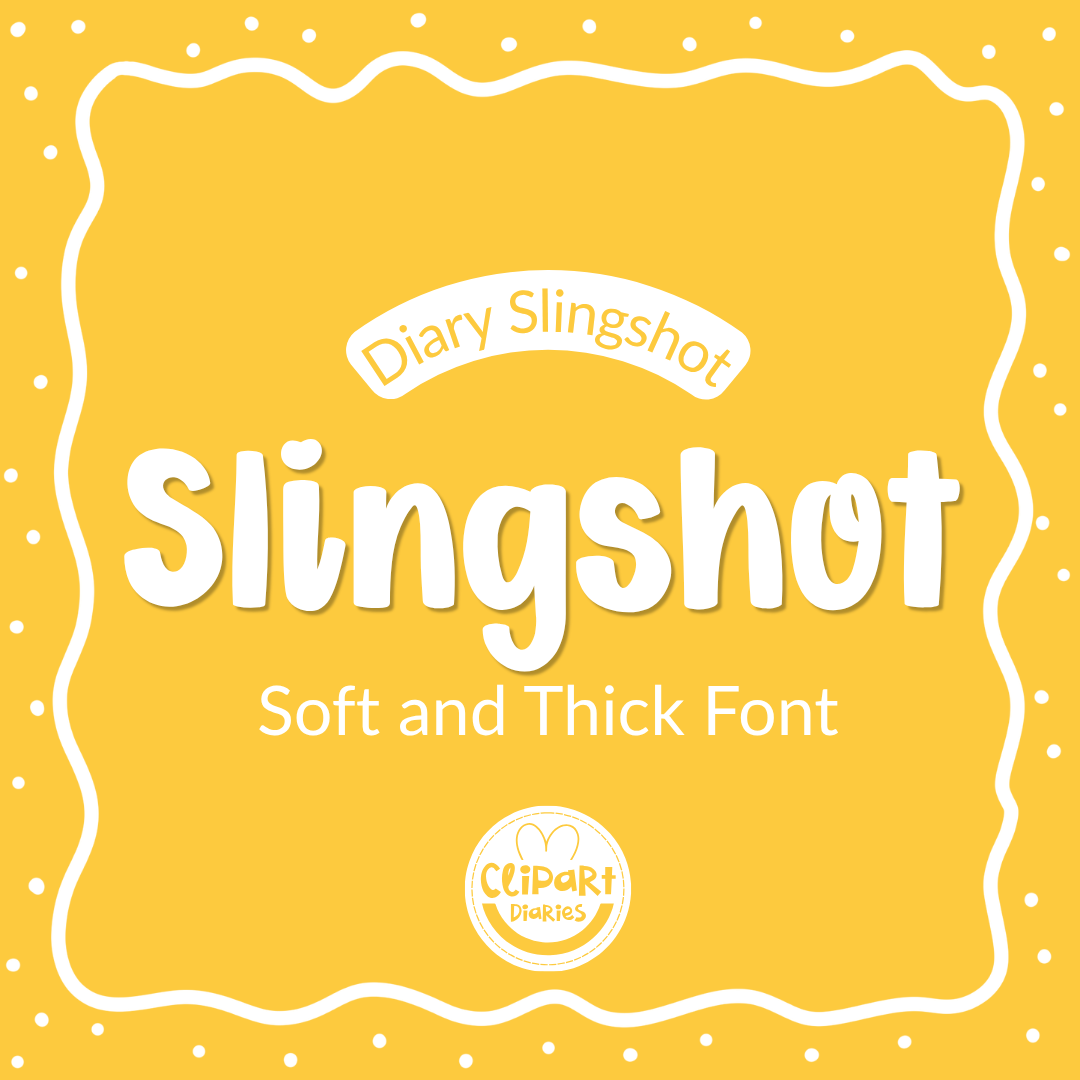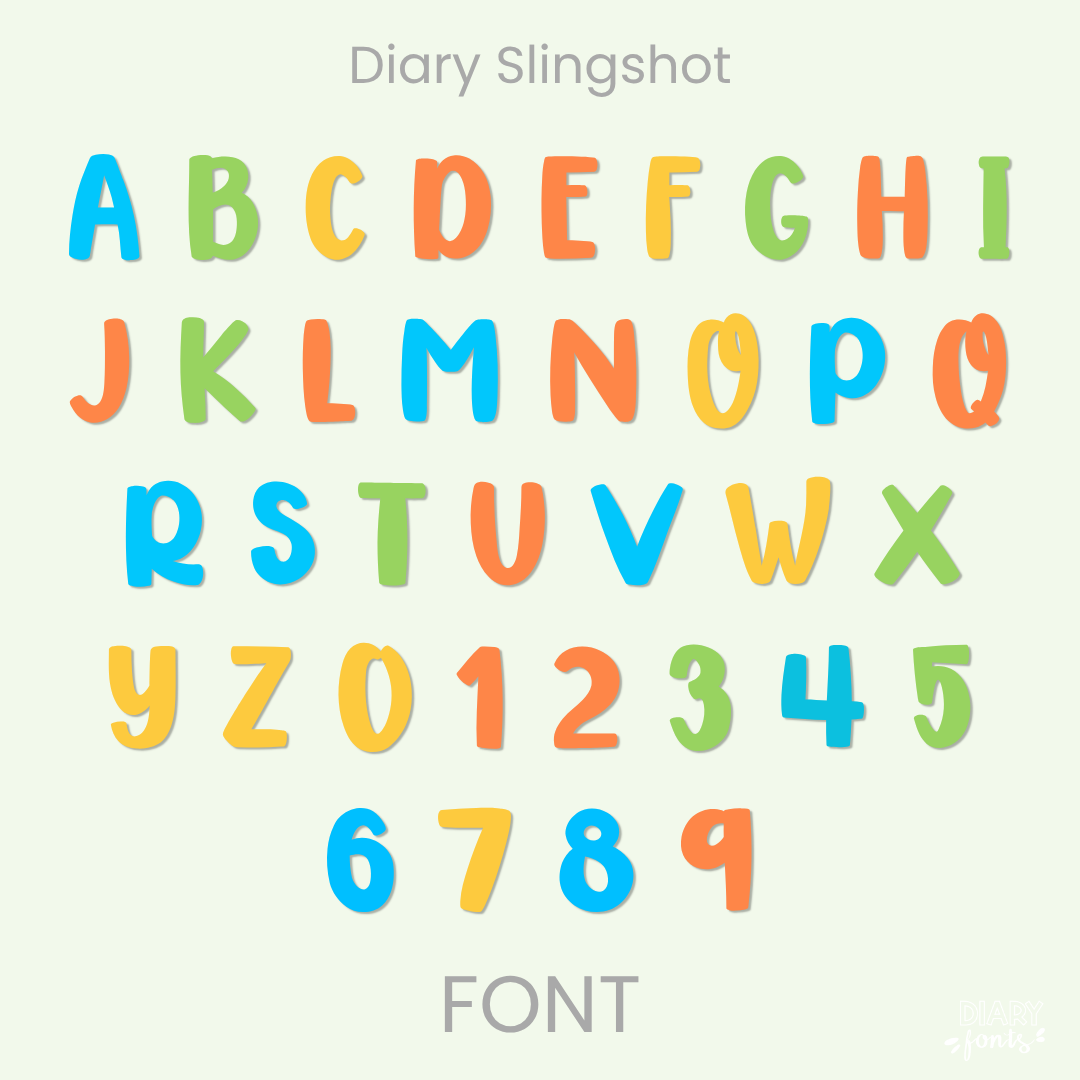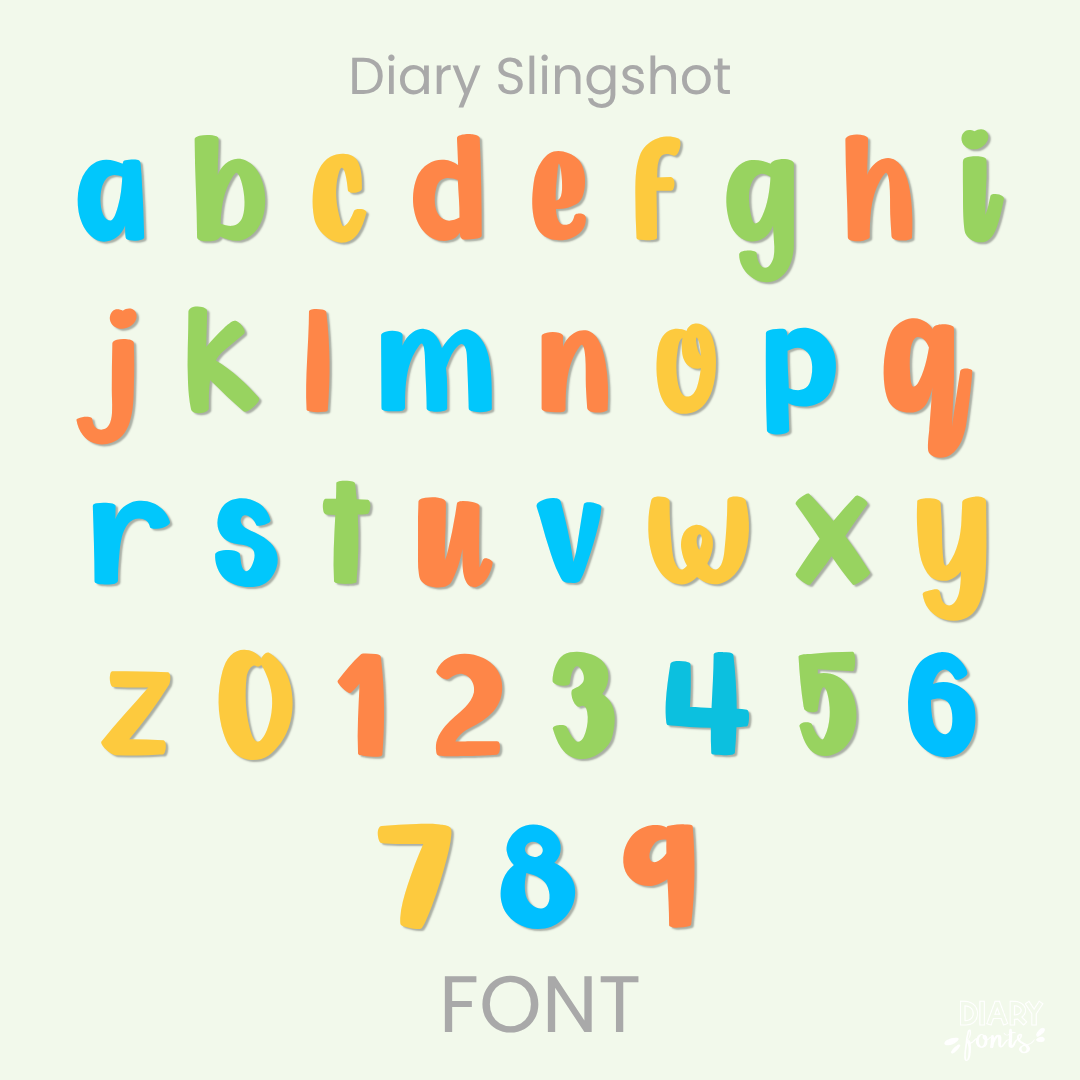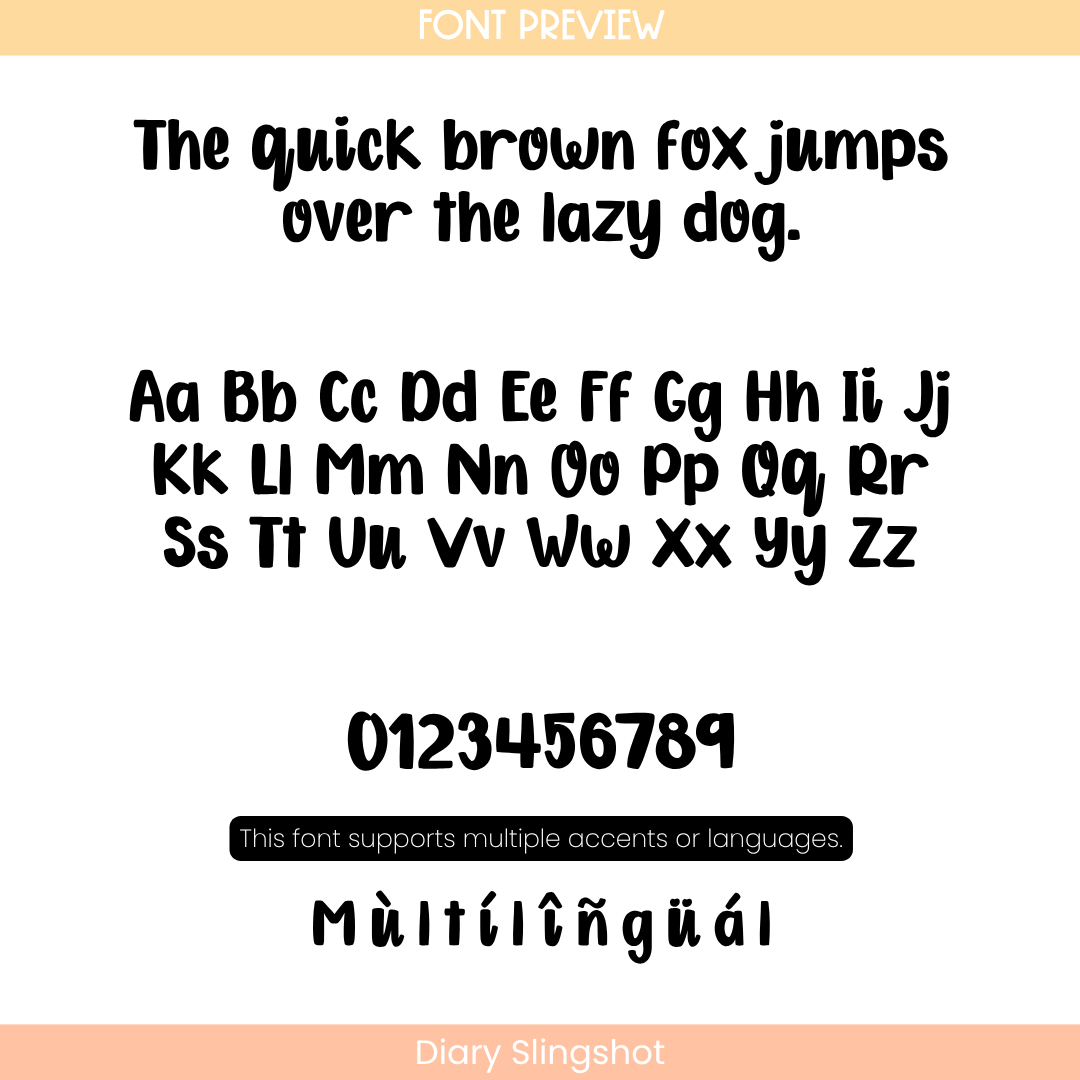
If you’ve been searching for a go-to bold handwritten font that has a beautiful, heavy weight but keeps your layouts looking incredibly tidy, Diary Slingshot is about to become your new absolute favorite. It features a wonderfully thick, soft character structure with smooth, clean lines that sit perfectly straight along the baseline. Because these hand-drawn letters are nice and bold with plenty of generous breathing room between them, it completely cuts out the visual clutter, making it an exceptionally clear and legible worksheet typography choice for your sweet students.
It is the absolute perfect choice for designing high-impact bulletin boards, bold presentation slide titles, custom subject covers, and clean instructional slide fonts where you want a friendly, modern vibe. Inside the download, you’ll get a full set of soft and thick uppercase and lowercase letters, solid matching numbers, and multi-accent marks for complete multilingual support. It drops right into Canva, MS Office, or Adobe on your desktop, and pairs beautifully with Procreate and GoodNotes on your iPad. Whether you’re prepping daily activities for your own sweet classroom or designing fresh new commercial-use educational resources for your online teacher shop, this chunky display heading font adds a touch of confident, friendly style to your creative toolkit.